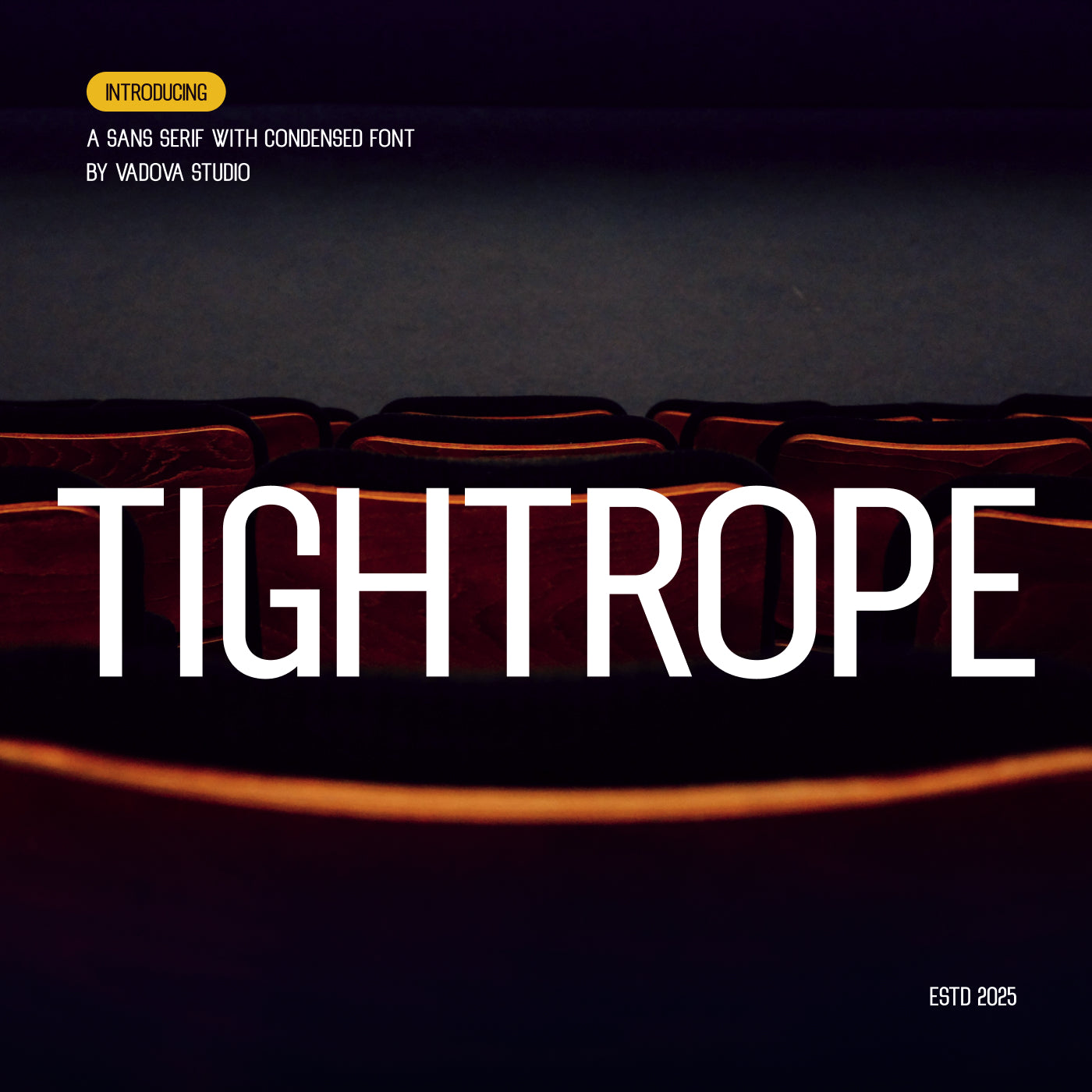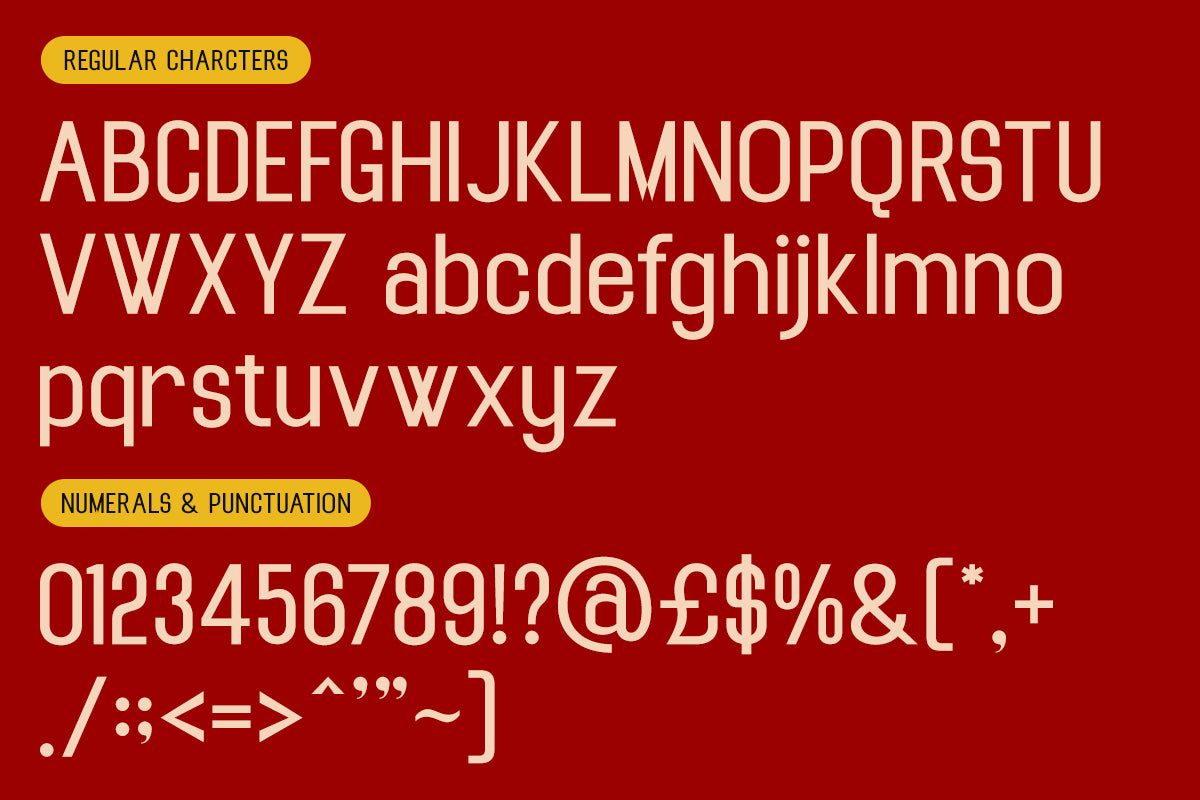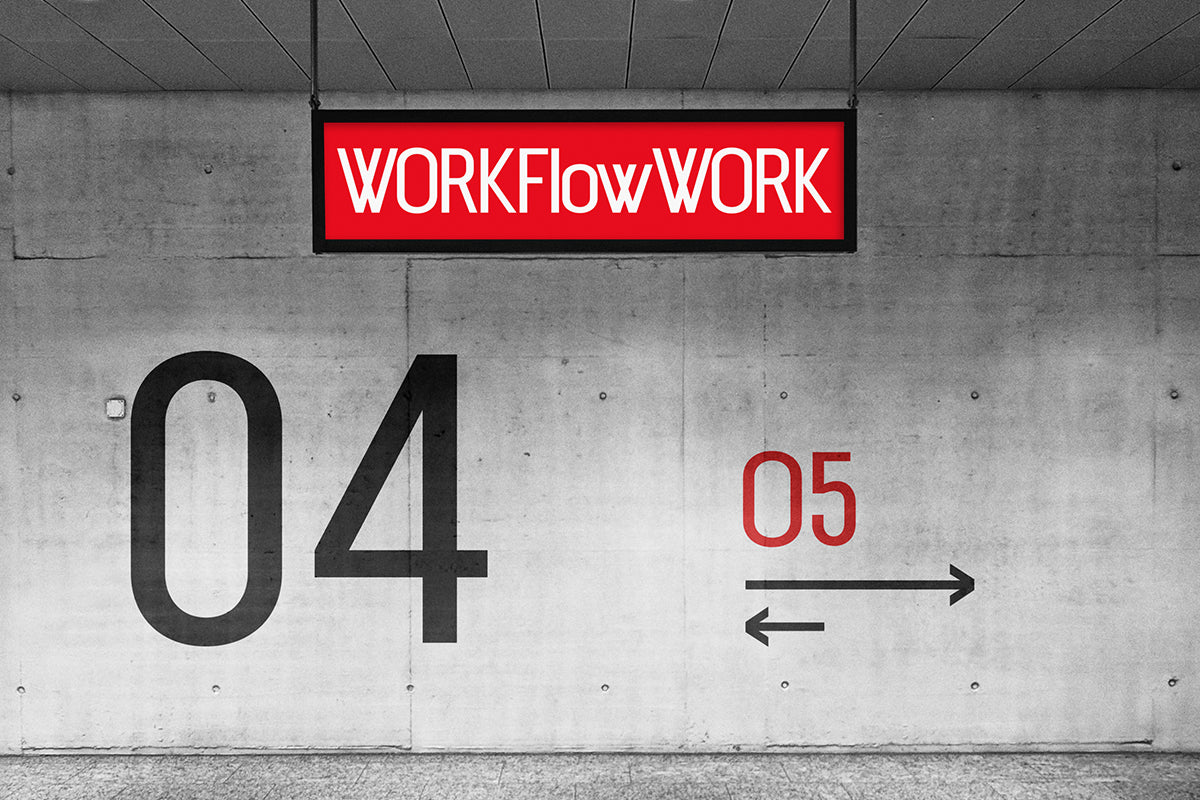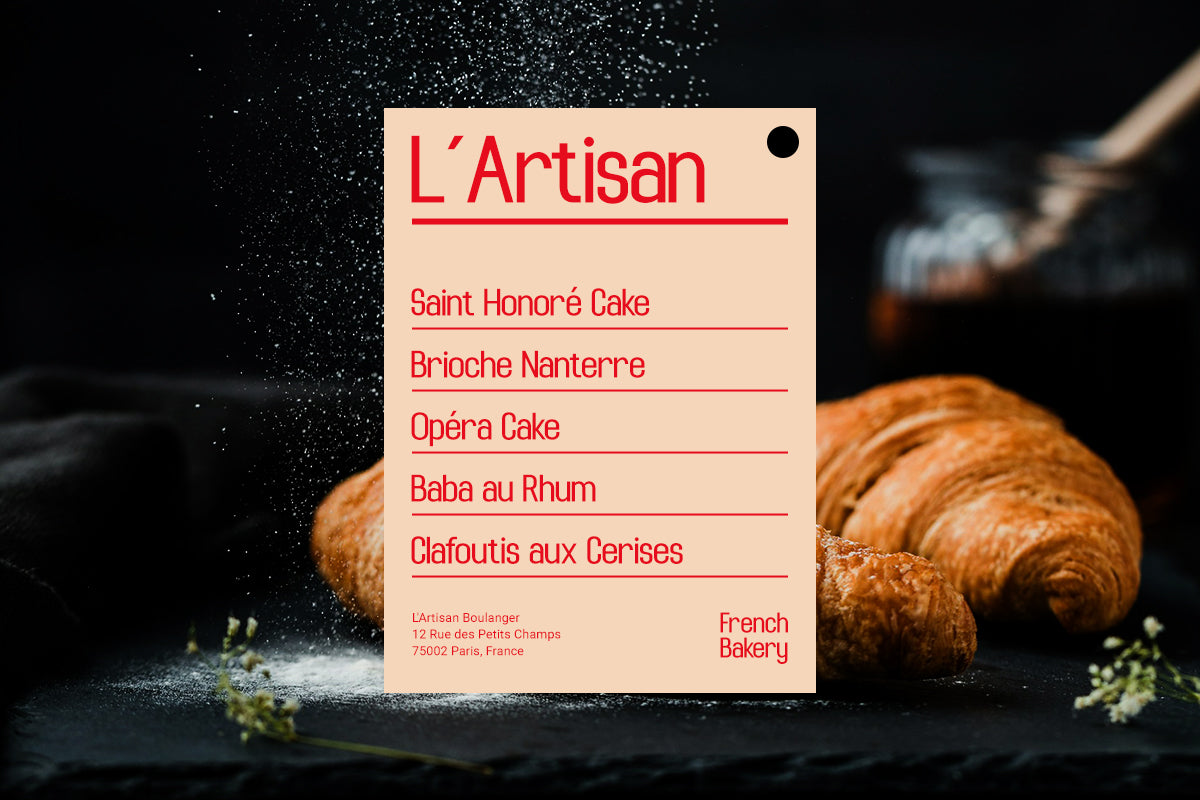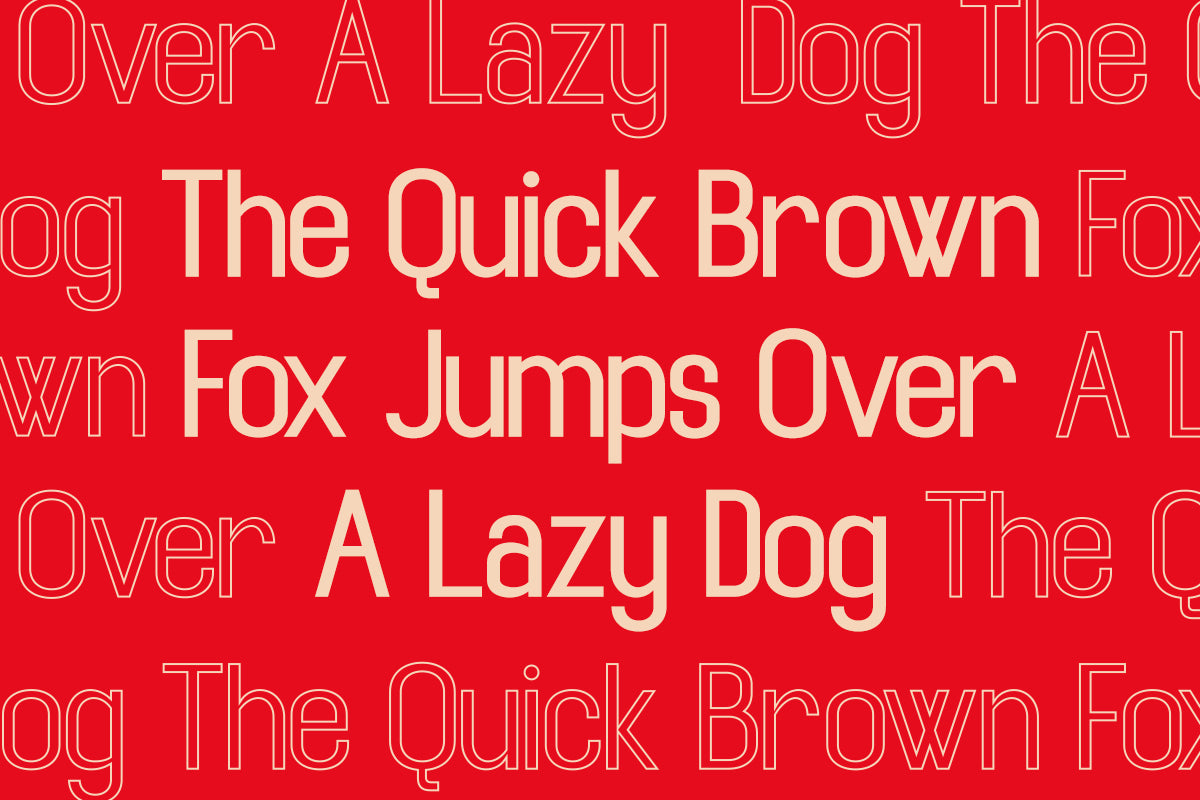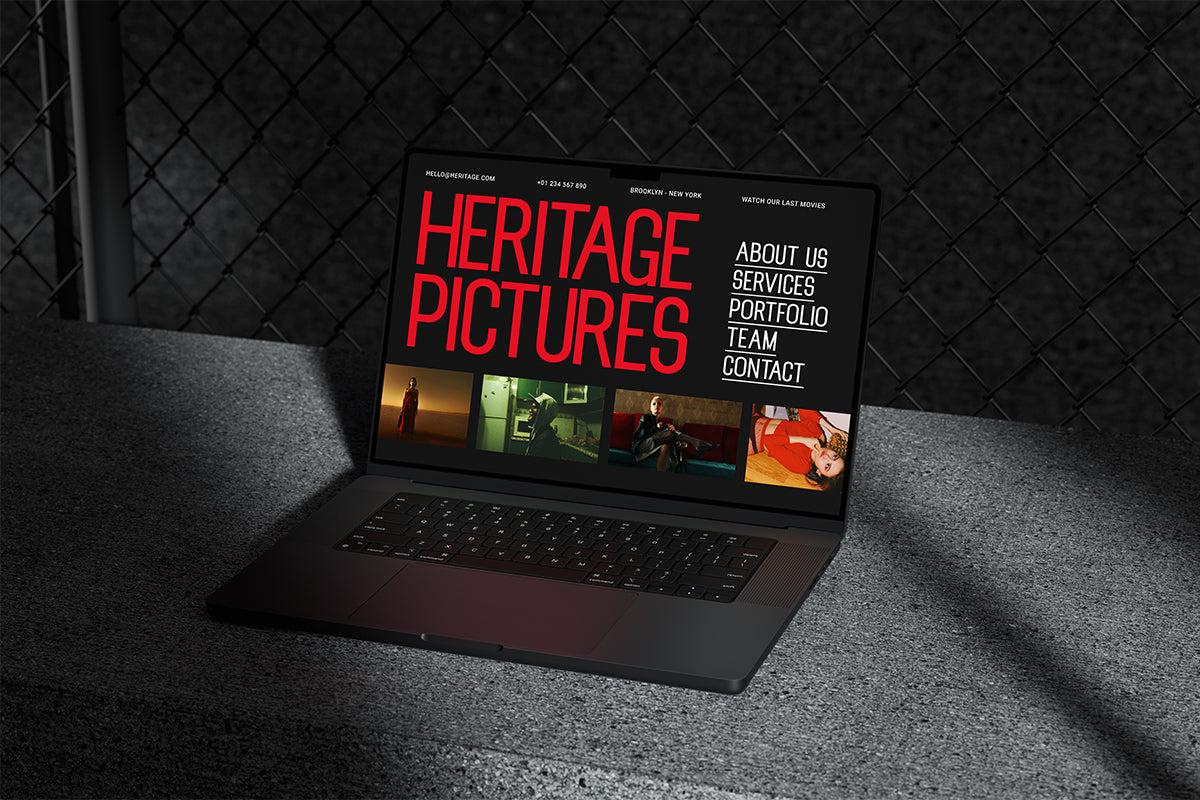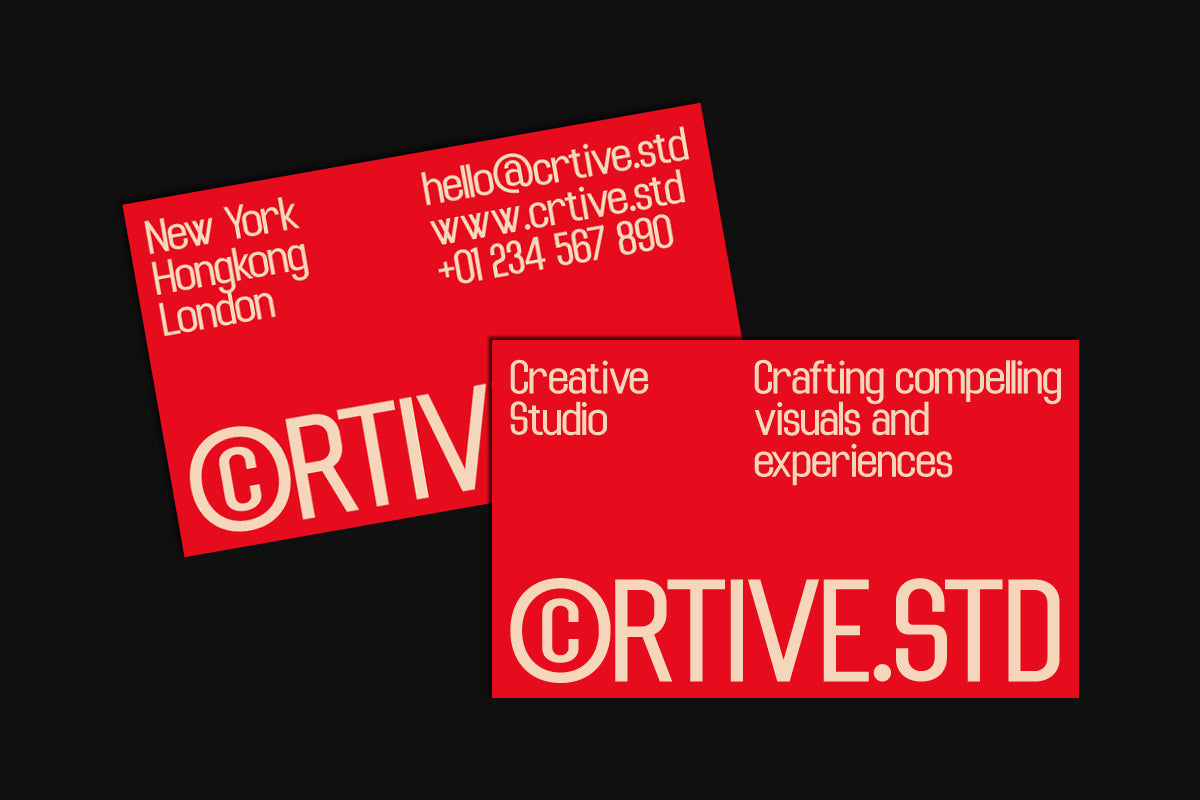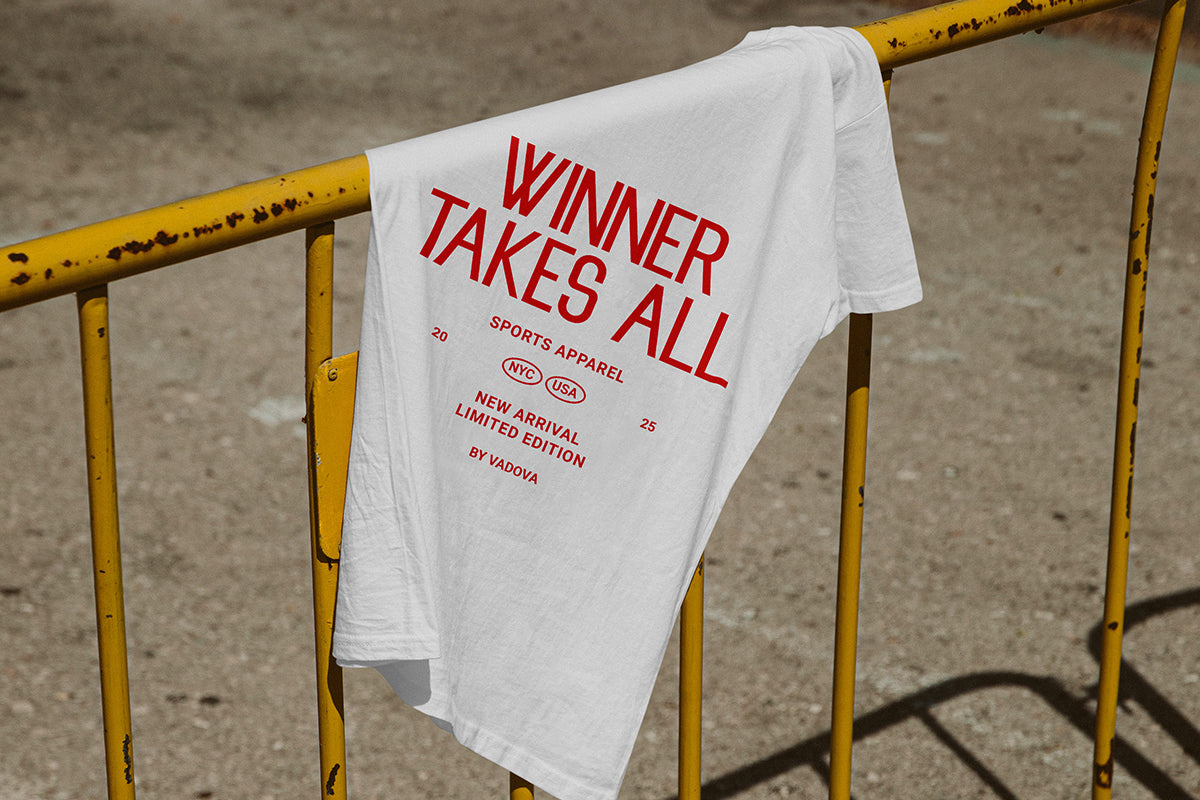
Tightrope Sans Serif Condensed Font
Tightrope Condensed Font is a modern, condensed sans-serif font with a confident and cinematic vibe. Its tall, narrow letterforms make it perfect for dramatic titles, editorial headlines, and sleek branding. With a clean, slightly retro structure, it fits seamlessly into fashion, film, and creative projects. Make your message stand tall. Tightrope grabs attention with bold elegance and sharp precision, making it an ideal choice for designers who want impact without clutter. It’s the go-to font when your layout needs power, focus, and style. Suitable for fashion magazines, movie posters, bold editorials, Instagram quotes, branding logos, music flyers, art exhibitions, book covers, cinematic YouTube thumbnails, high-end portfolios, motion graphics, and moreTightrope adds edge and clarity to any creative work.
Tightrope Sans Serif Condensed Font is a condensed sans-serif typeface featuring tall, narrow letterforms with a clean, slightly retro structure. It includes uppercase and lowercase characters, numerals, and punctuation, and is available in TTF, OTF, and WOFF formats.